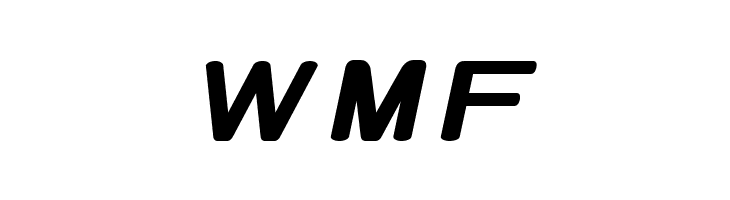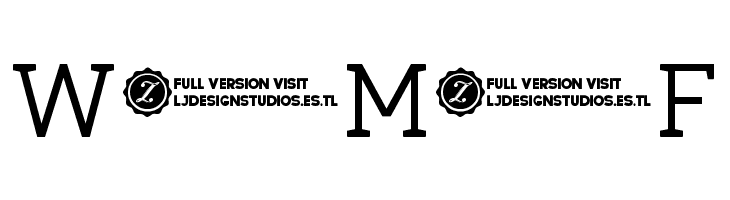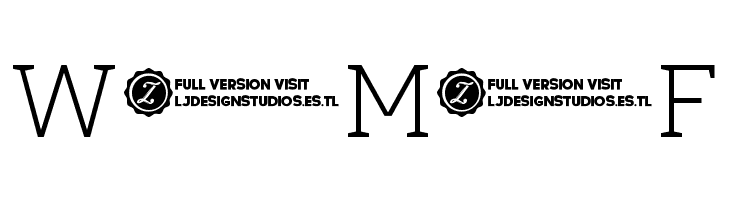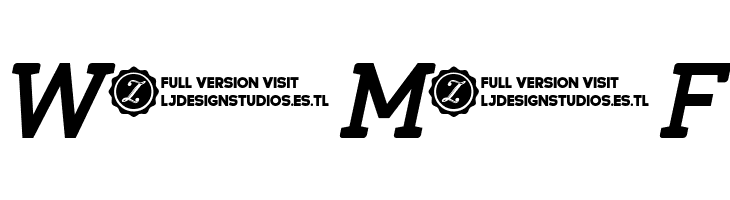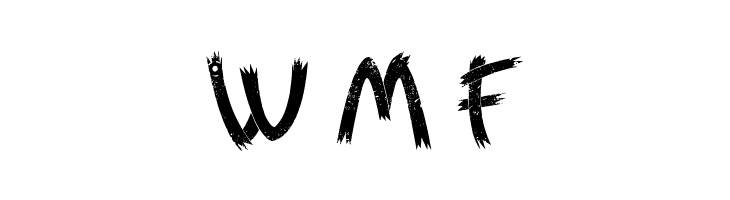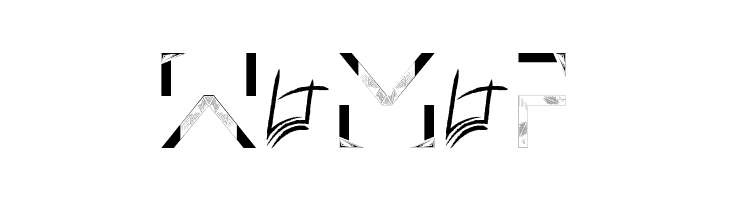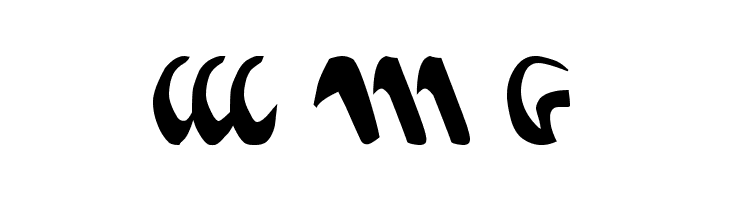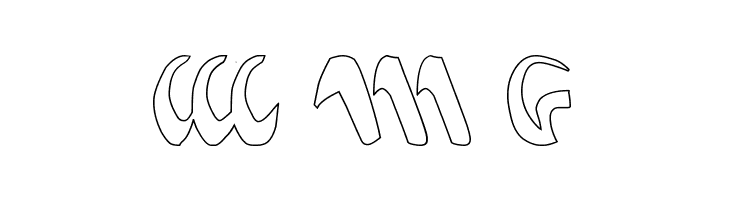
A clean, professional serif font with balanced proportions and clear readability.
A modern, elegant font with clean lines and slight stroke contrast.
A bold, italicized font with strong strokes and a dynamic slant.
A bold and robust font with thick strokes and a strong presence.
A bold, distressed font with a grunge-like, edgy appearance.
A modern, geometric font with bold lines and intricate patterns.
A hollow, decorative script-like font with bold outlines and artistic flair.
A decorative and mystical font with bold, flowing characters and unique embellishments.
A mysterious, hollow font with an ancient, coded appearance.
A bold, italic font with smooth, rounded edges and a modern slant.